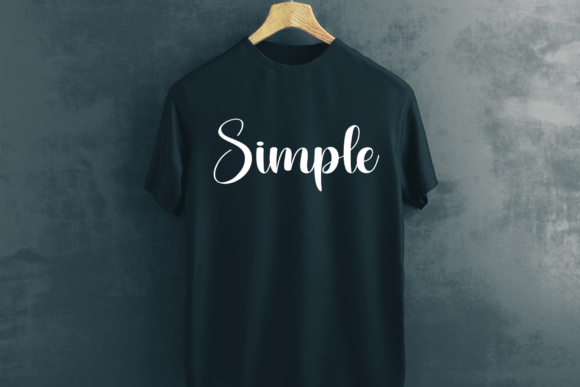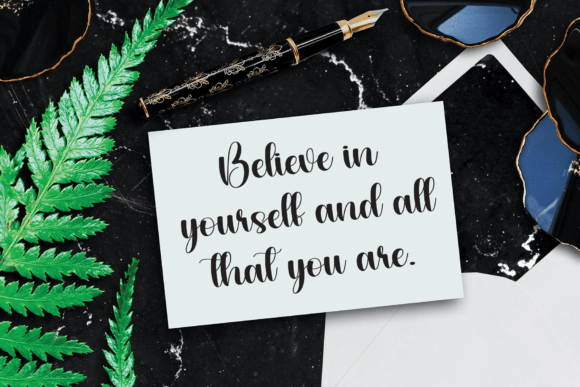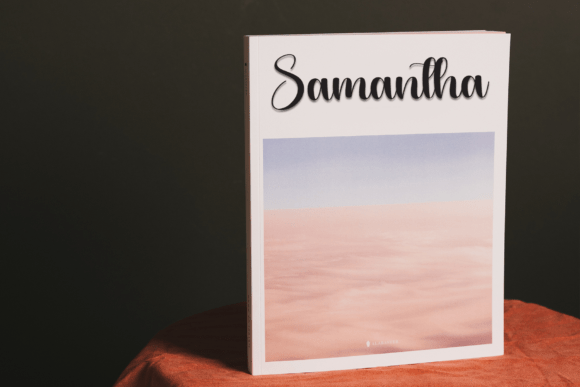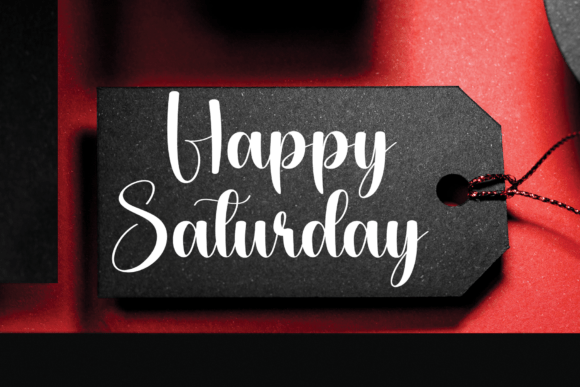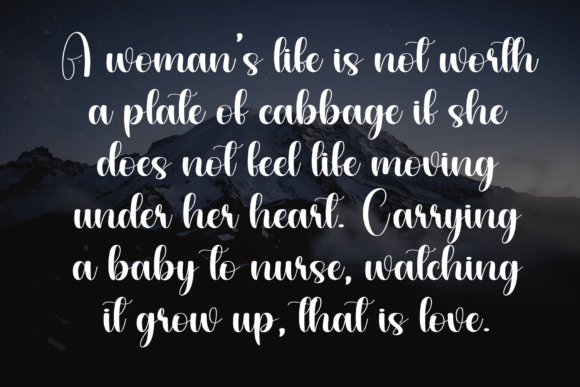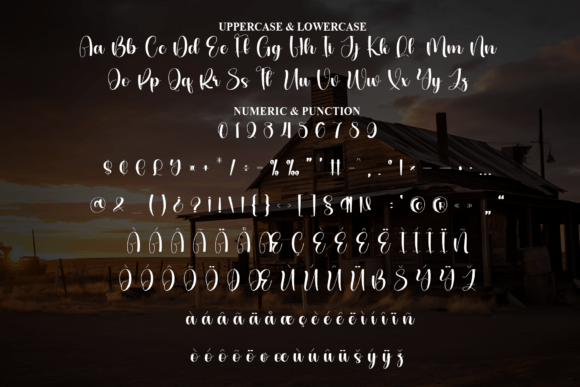
Introduction to Black Farmhouse Font
Black Farmhouse is a charmingly sweet and amiable handwritten display font that will breathe life into your designs.
Quaint and playful, this unique typeface is perfect for crafting wedding invites, heartfelt cards, or any creative project that could use a whimsical touch Let your design narrate charming stories with its unique aura and easy readability.